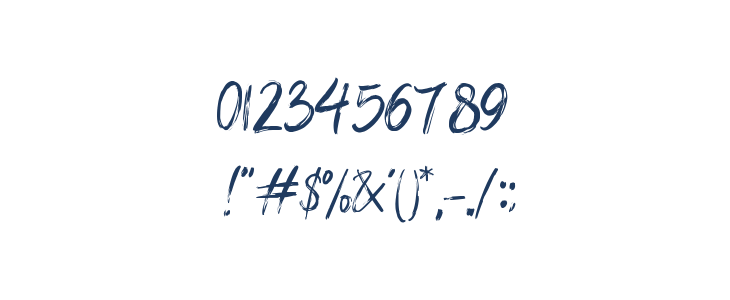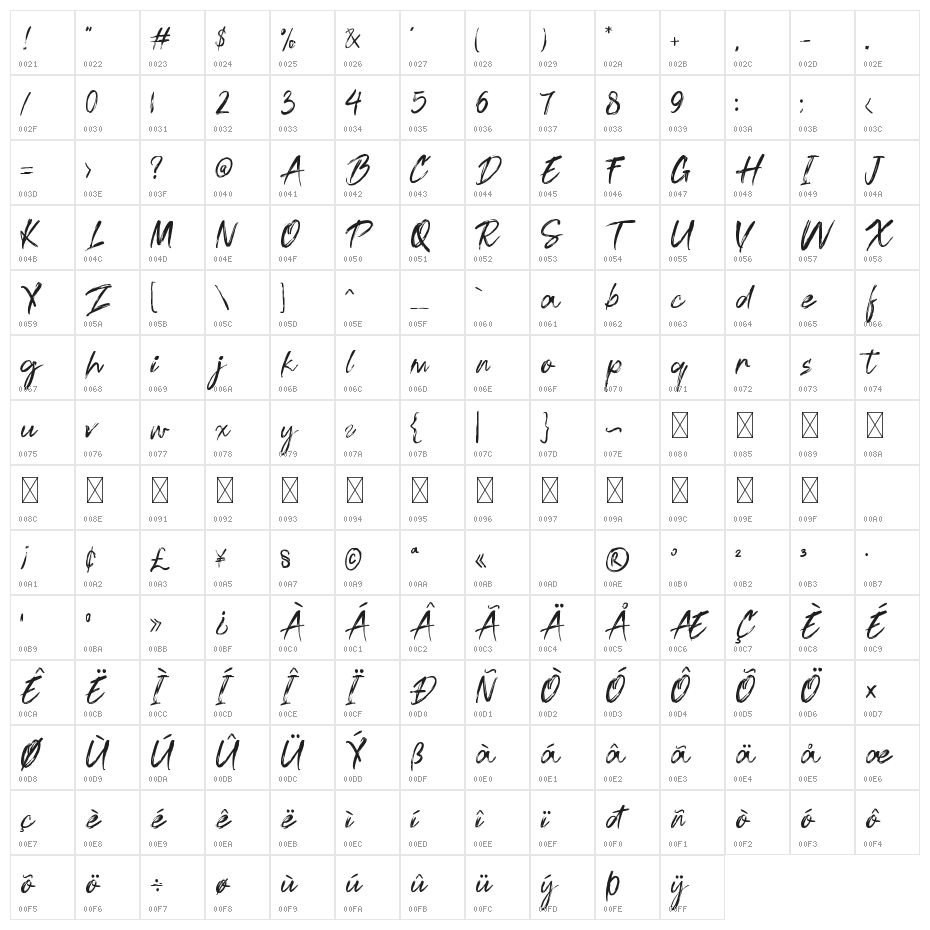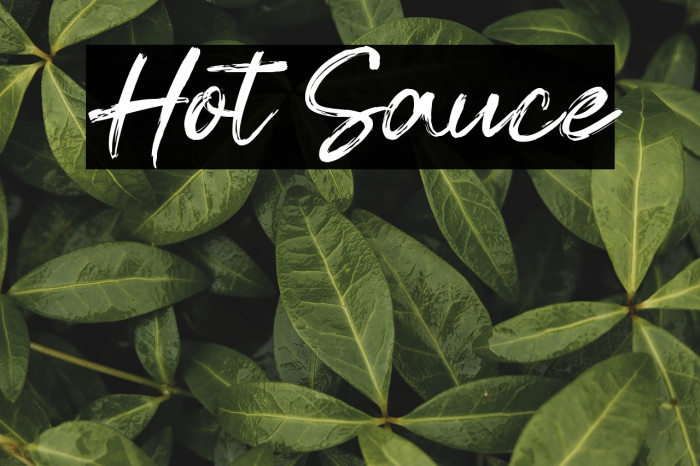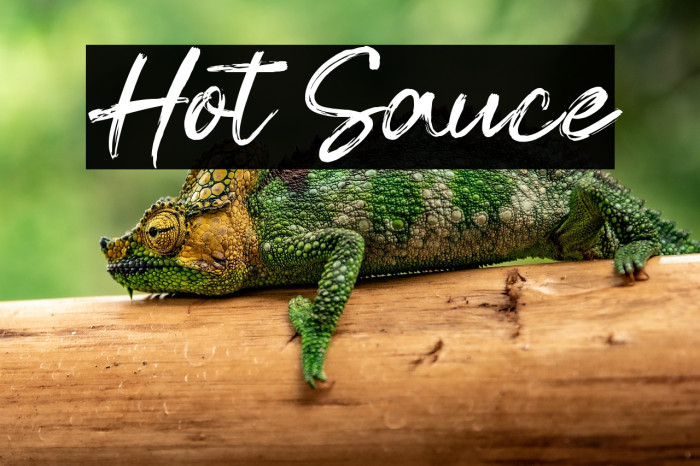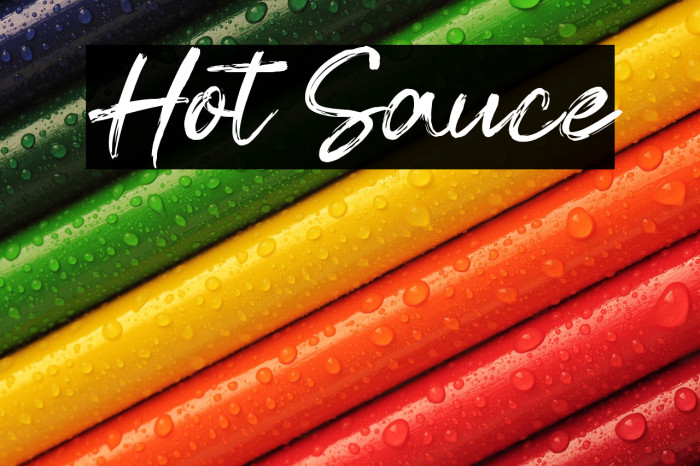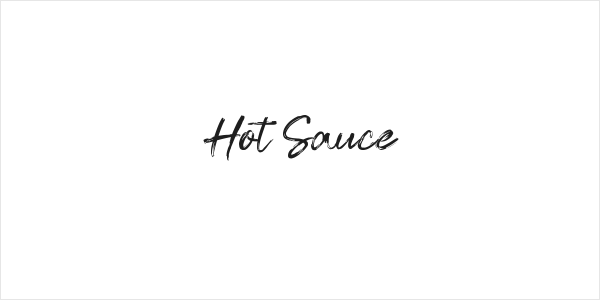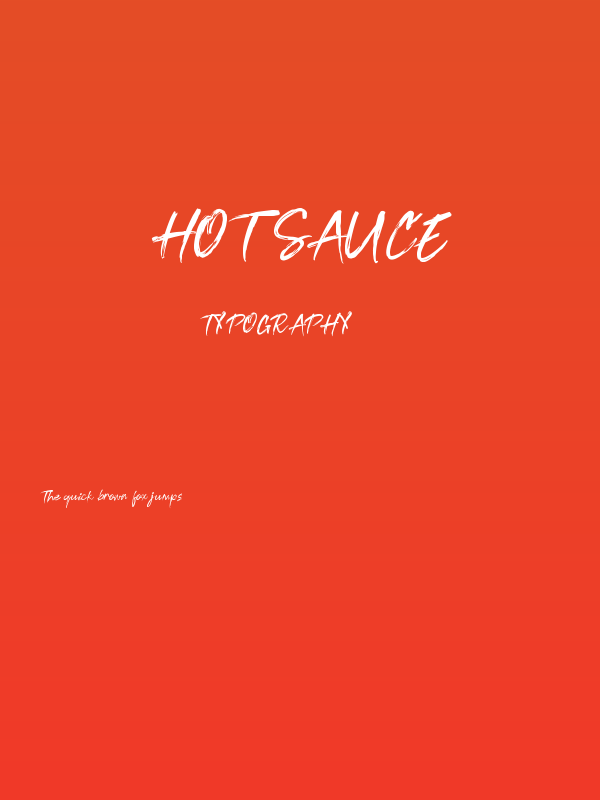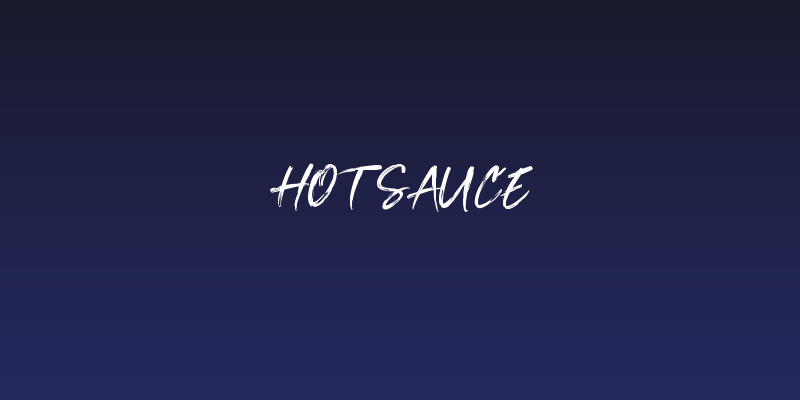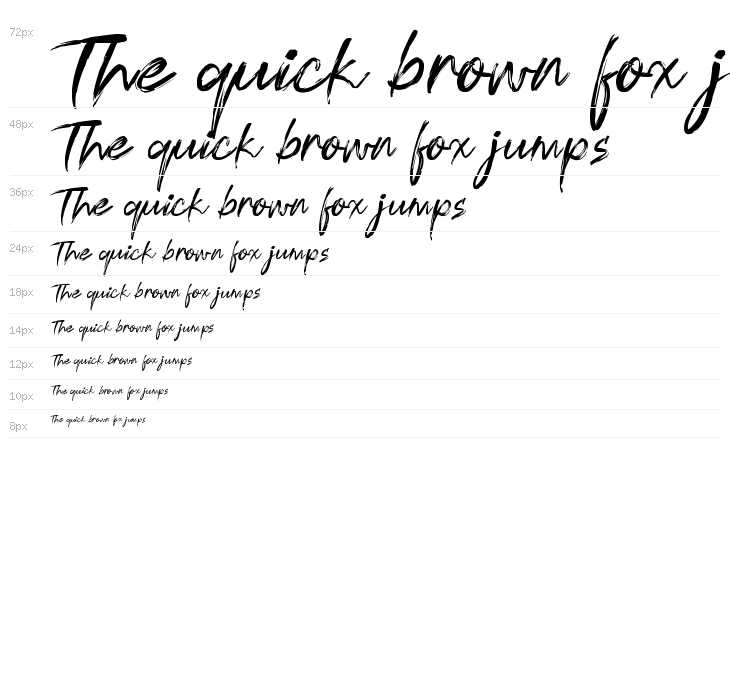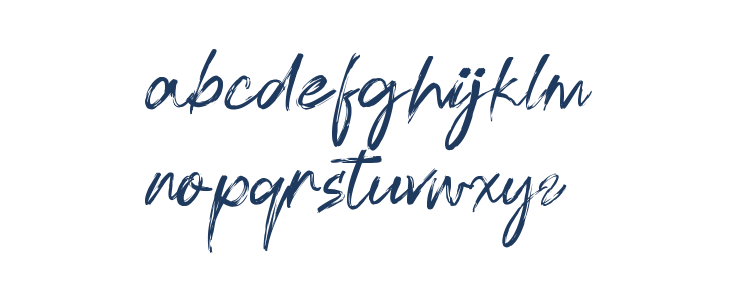
Hot Sauce Font
Hot Sauce Description
This font exudes a bold and energetic style, characterized by its brush-like strokes and dynamic flow. The letters are crafted with a sense of movement, giving them a lively and expressive appearance. The uppercase and lowercase letters maintain a consistent style, with varying stroke thickness that adds to the font's artistic flair. The numerals and special characters are equally expressive, ensuring a cohesive look across all text elements. This font is perfect for projects that require a touch of creativity and boldness.